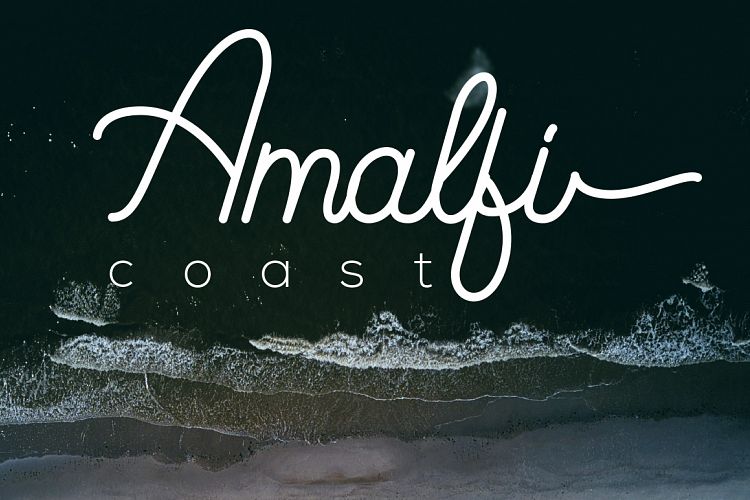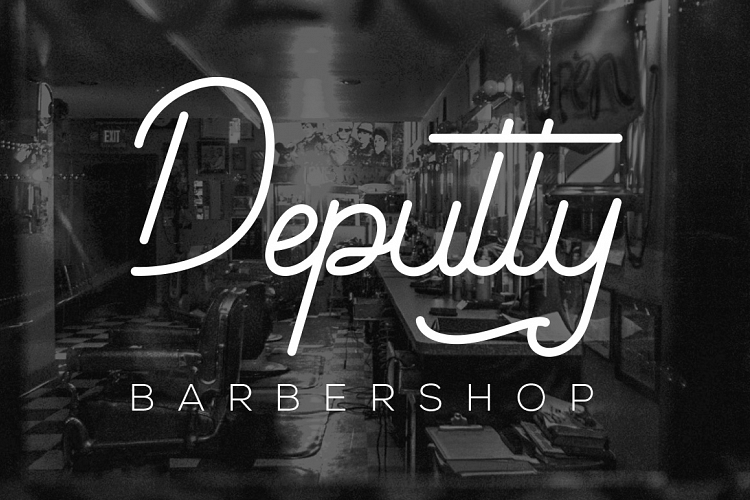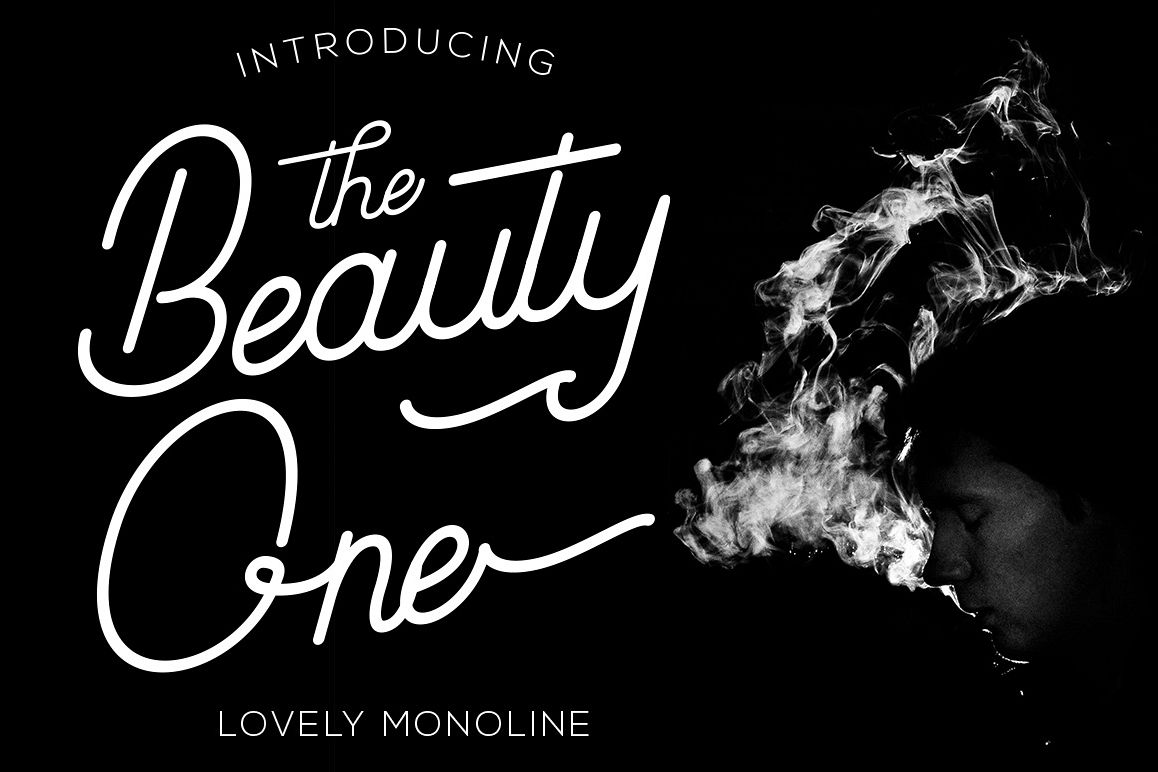
Beauty One Script Font
Introducing the Beauty One​​​​​​​, a stylish monoline script style font. This beautiful script font offers your personal touch to your latest art project with fresh, curvy and beautiful look.
Beauty One​​​​​​​ offers beautuful typographic will perfect for many different project such as logo, branding, invitation, flyer, posters, social media posts, advertisements, product packaging, product designs, label, photography, special events or anything that need monoline script taste.